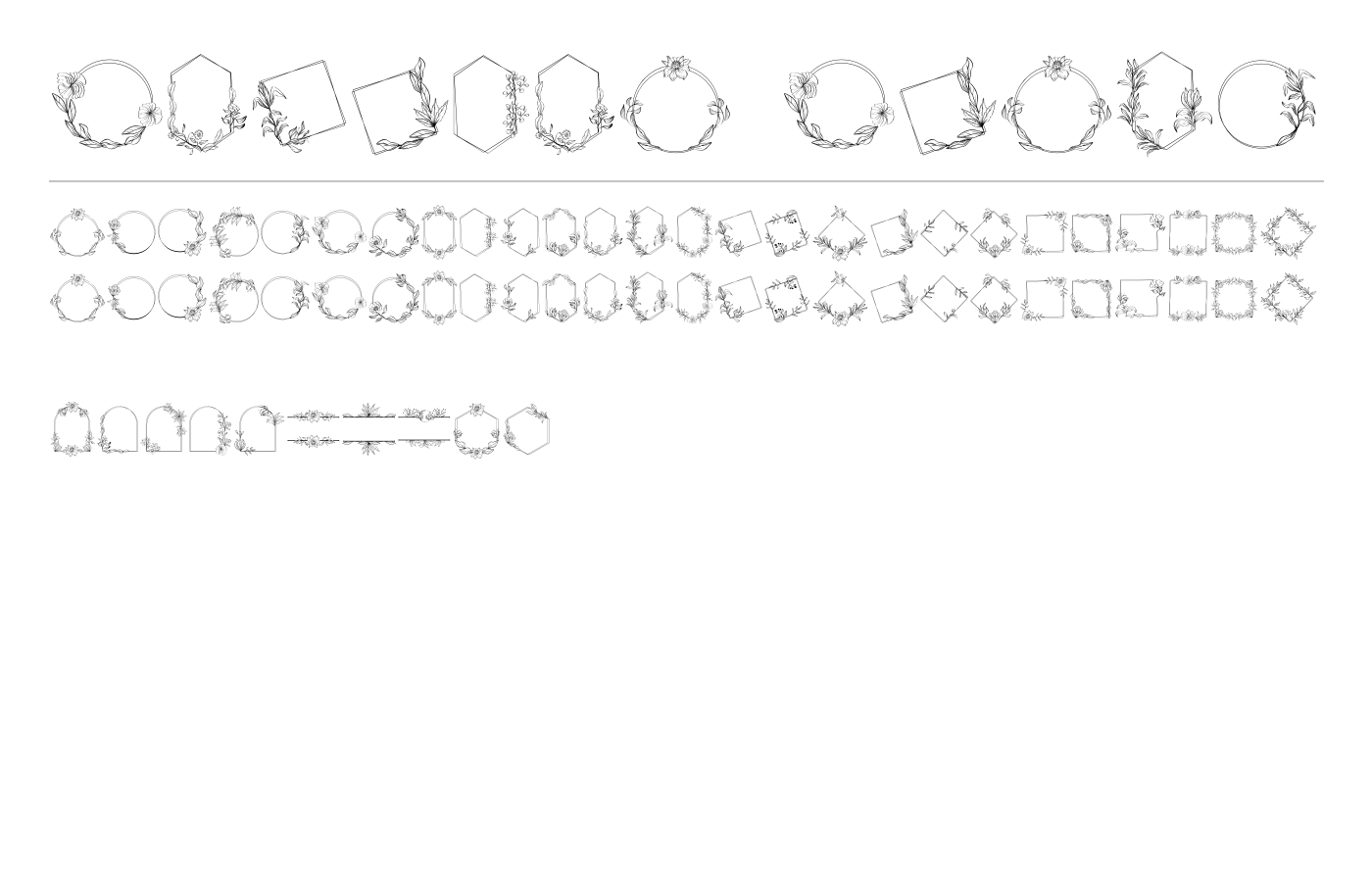
Florila Frame Font is a beautifully delicate decorative typeface featuring a variety of elegant floral and geometric frames. With its fine, hand-drawn lines and intricate botanical details, this font conveys a graceful, romantic, and vintage feel, perfect for wedding invitations, luxury branding, or artistic packaging. Its detailed ornamental style works best in large formats or as accents, adding a sophisticated touch to designs needing a refined and natural aesthetic.
Florila Frame Font
About Florila Frame Font